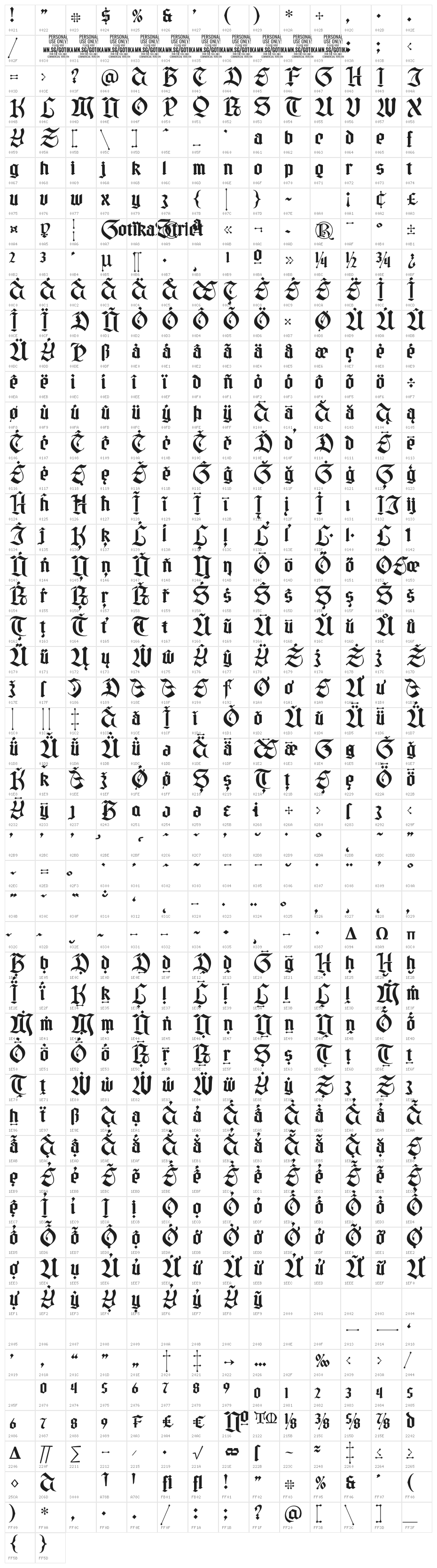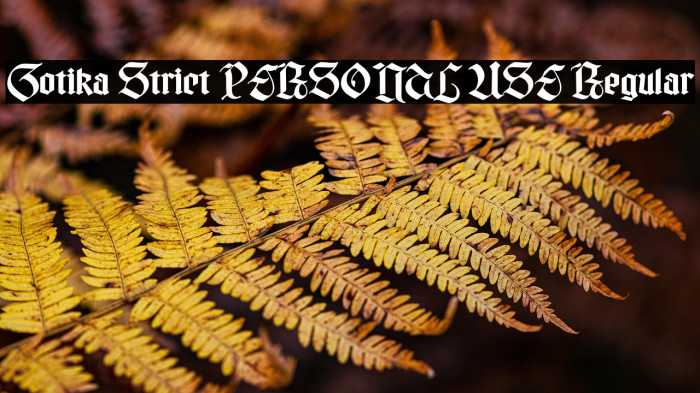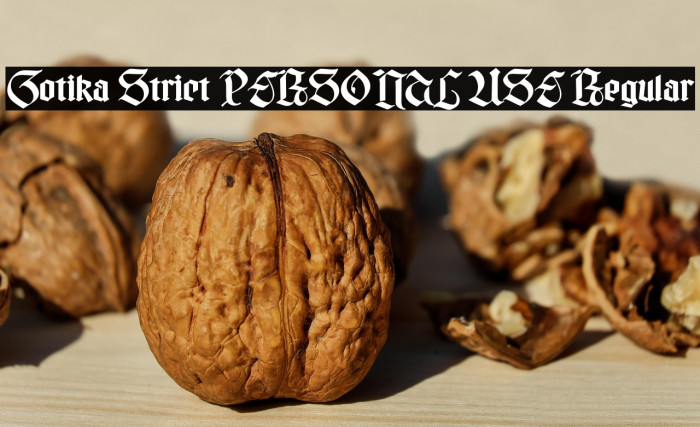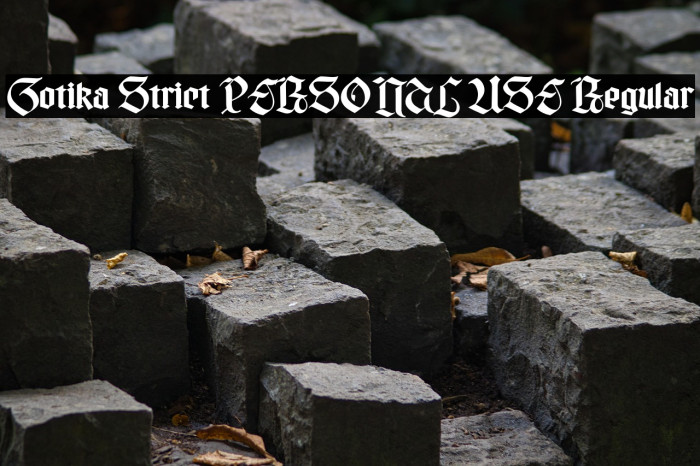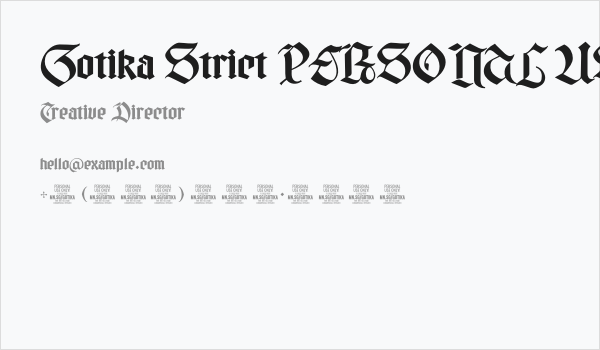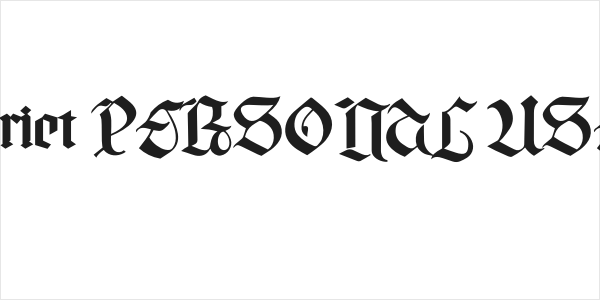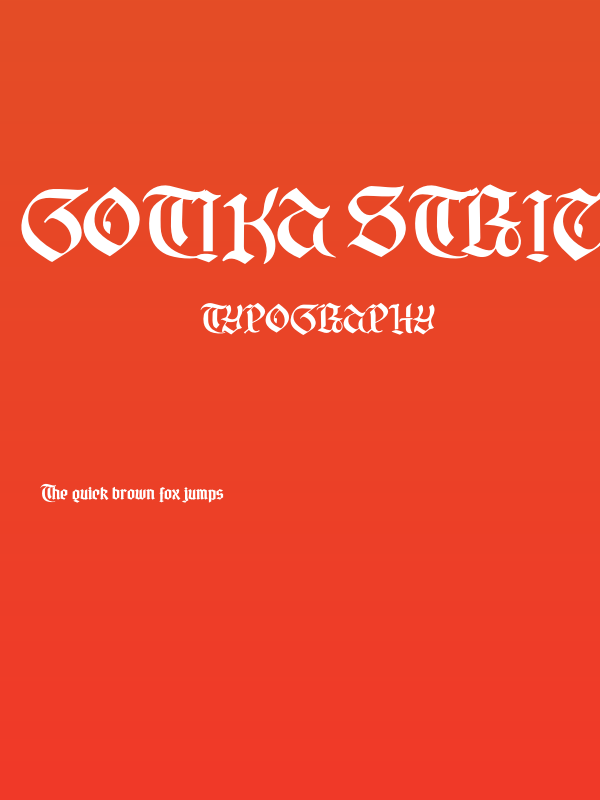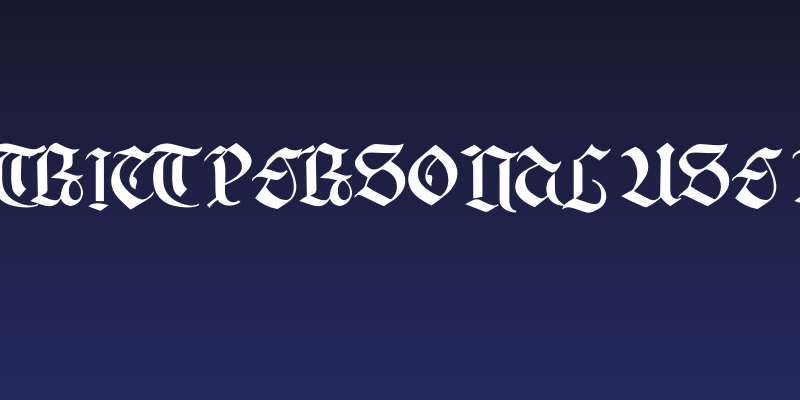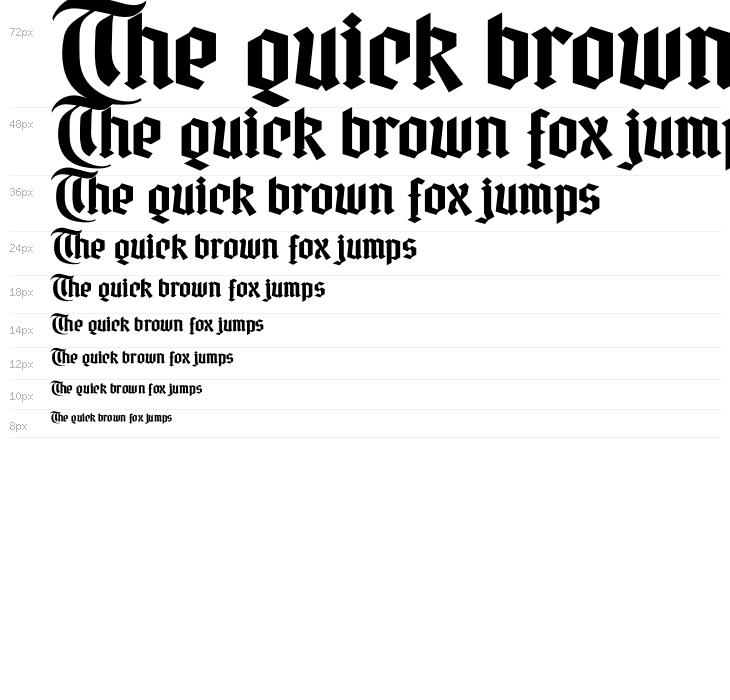
Gotika Strict PERSONAL USE Regular Font
Gotika Strict PERSONAL USE Regular Description
This font features a bold and striking blackletter style, reminiscent of traditional Gothic script. The characters are sharply angular with dramatic flourishes, creating a sense of historical gravitas and elegance. Each letter is meticulously crafted with high contrast between thick and thin strokes, enhancing its ornate appearance. The uppercase and lowercase letters maintain a consistent style, while the numerals and special characters complement the overall aesthetic. This font is ideal for projects that require a touch of medieval or vintage flair, such as invitations, posters, or branding for historical-themed events.
| Proposed Projects | Ideal for historical-themed branding, invitations, posters, and decorative projects. |